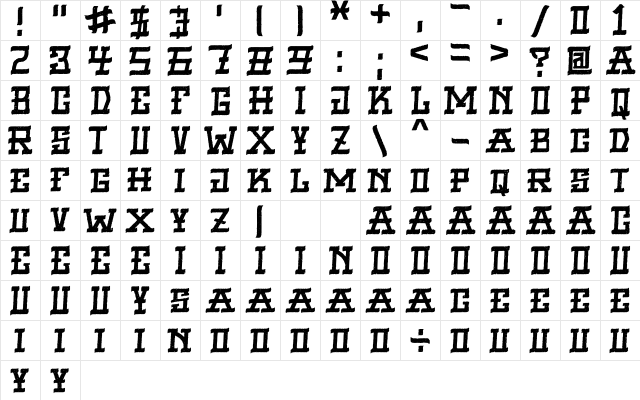
VIRGIL BLACK TEXTURED Regular
| Foundry | High Up North LLC |
| Designer | High Up North |
Design Context for VIRGIL BLACK TEXTURED Typeface
VIRGIL BLACK TEXTURED embraces imperfection — its rough, textured character adds raw authenticity to designs that want to feel lived-in and unconventional.
A strong fit for alternative music projects, graffiti-adjacent design, and anything that deliberately resists polish.
Pro Tip: Use VIRGIL BLACK TEXTURED at larger sizes where the texture and irregularity of each letterform can be clearly seen — it loses its character at small sizes.